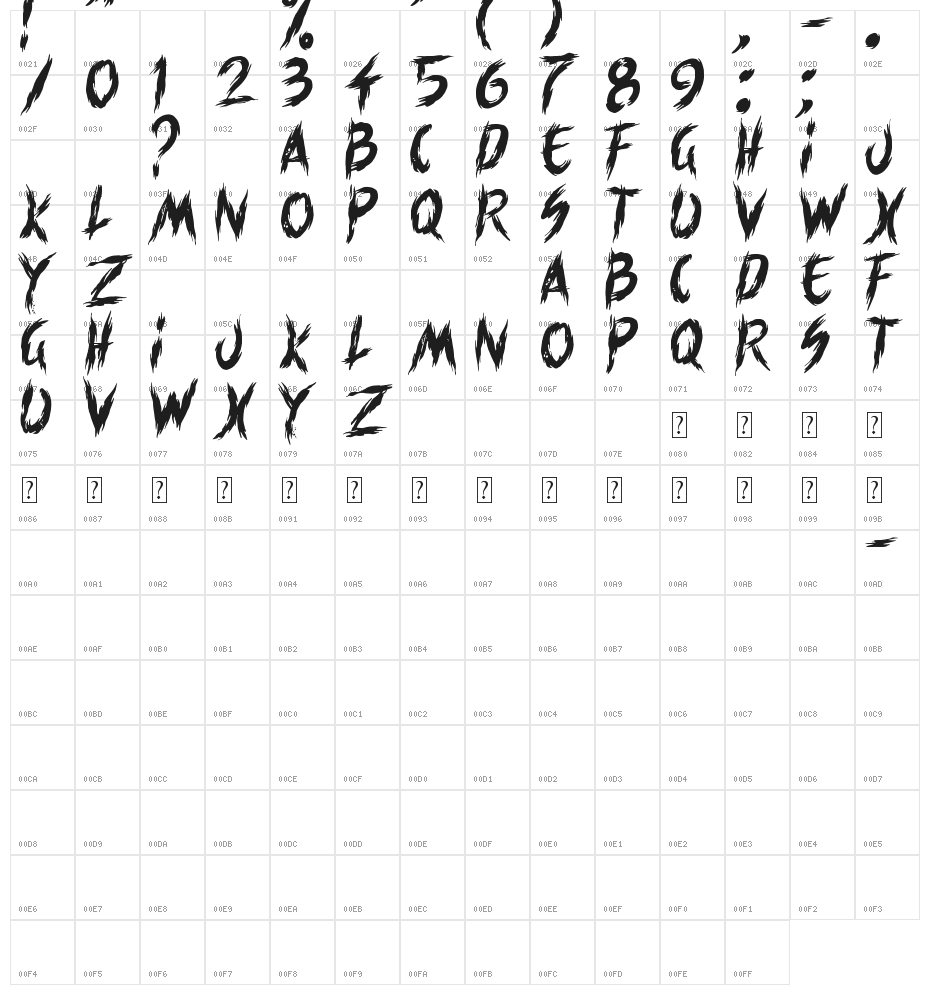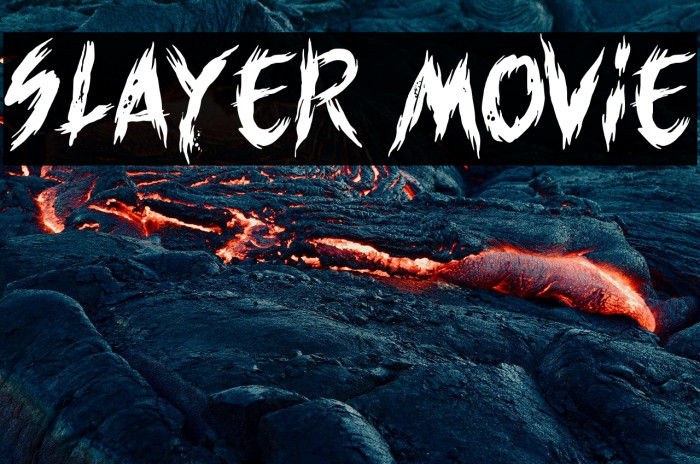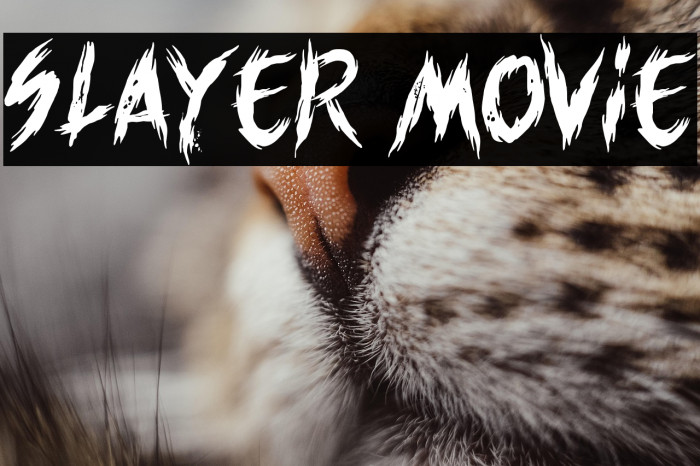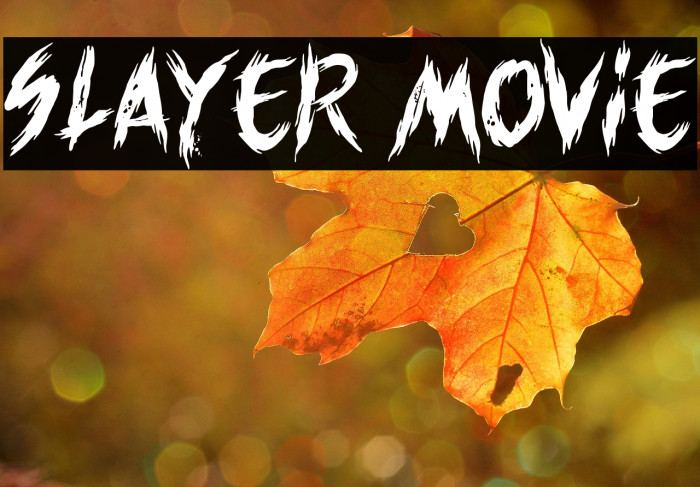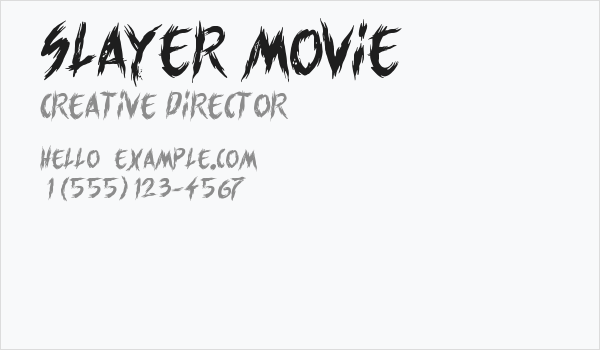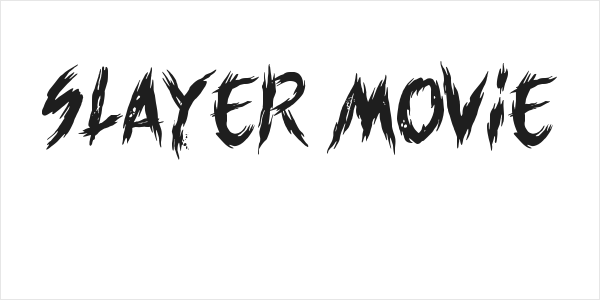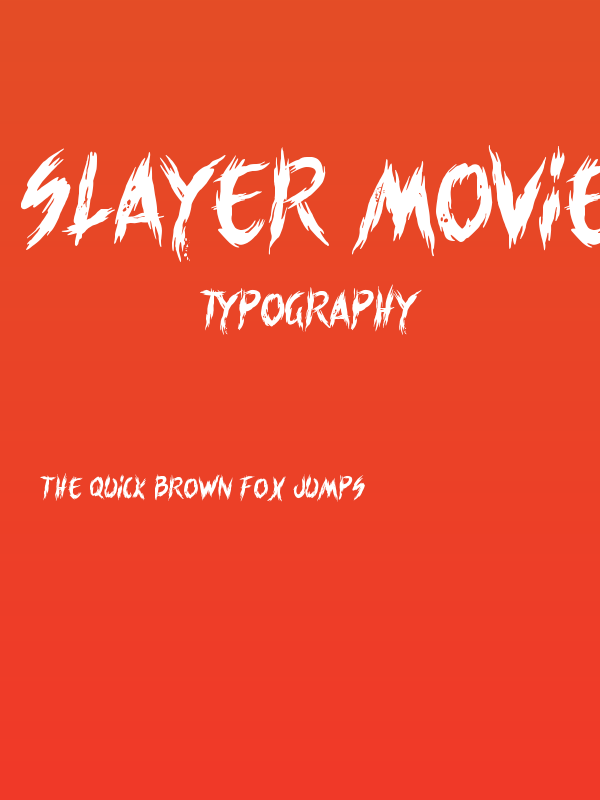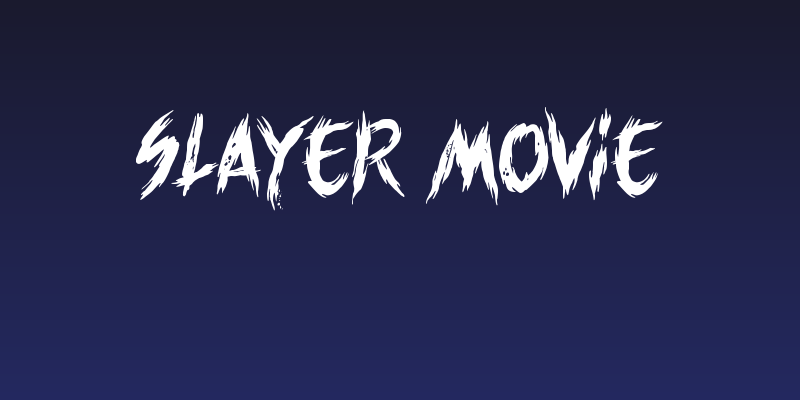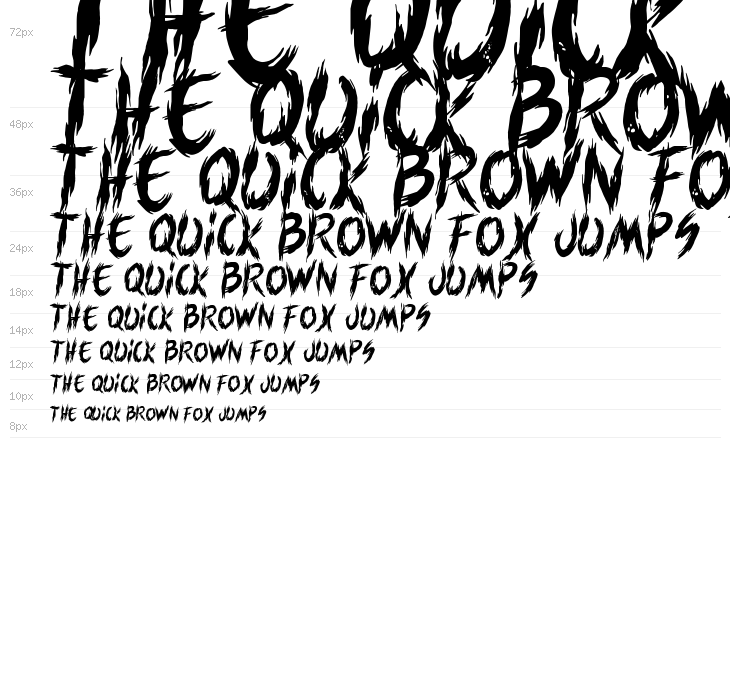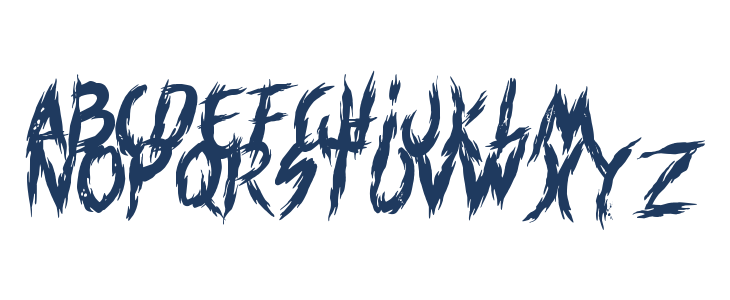
Slayer movie Font
Slayer movie Description
This font features a bold and aggressive style with sharp, jagged edges that evoke a sense of intensity and energy. The letters are designed with a rough, hand-drawn appearance, giving them a raw and dynamic feel. Each character is unique, with varying thickness and irregular strokes that create a sense of movement and chaos. The font's overall aesthetic is reminiscent of horror or thriller themes, making it ideal for projects that require a dramatic and impactful visual presence. The numbers and special characters maintain the same edgy style, ensuring consistency across all elements.
| Proposed Projects | Ideal for horror movie posters, video game titles, Halloween event flyers, and edgy branding. |